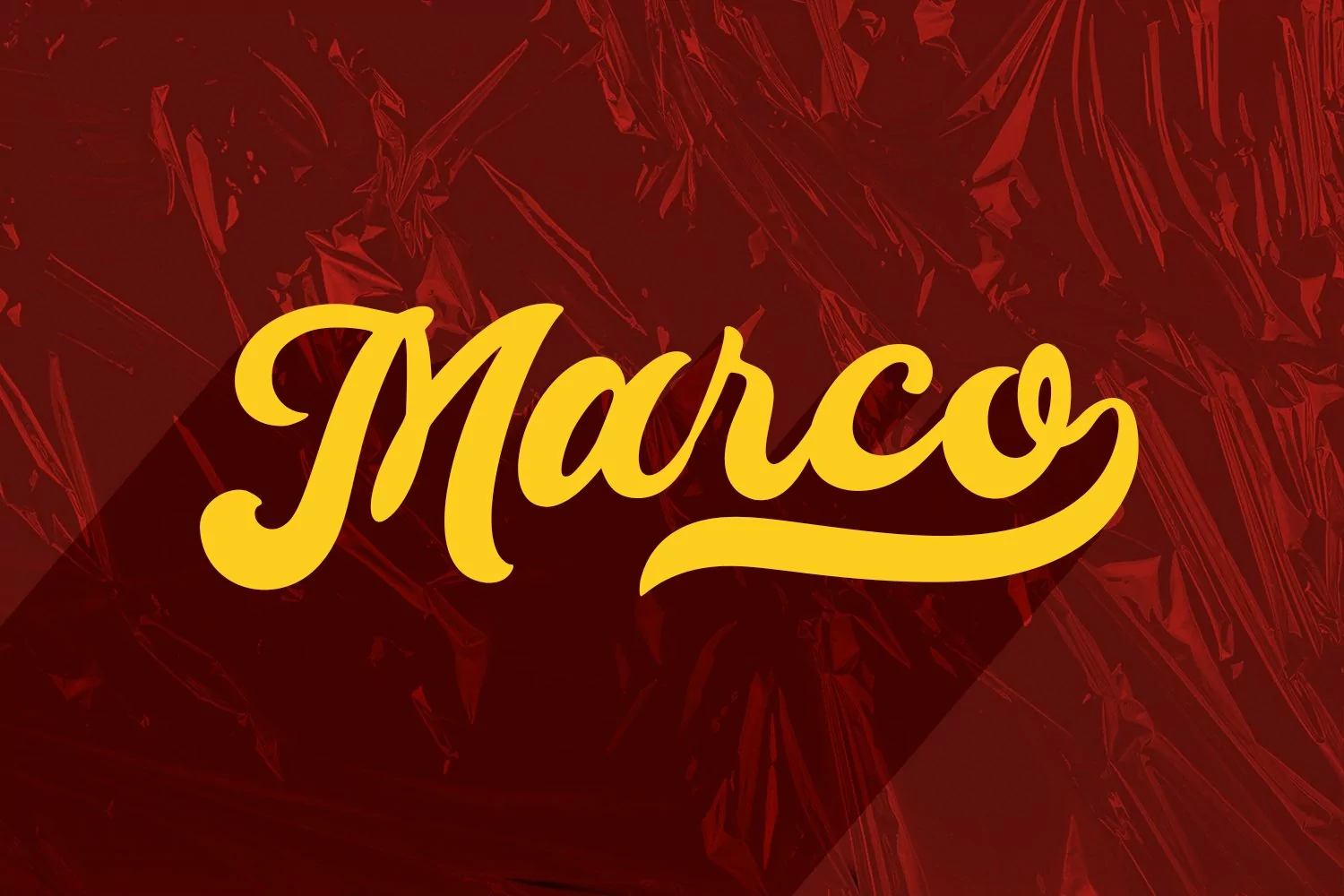
Mothela is an retro vibes display script font. With bold contrast stroke, fun character with a bit of ligatures and alternates. To give you an extra creative work. Mothela font support multilingual more than 100+ language. This font is good for logo design, Social media, Movie Titles, Books Titles, a short text even a long text letter and good for your secondary text font with sans or serif. Make a stunning work with Mothela font.